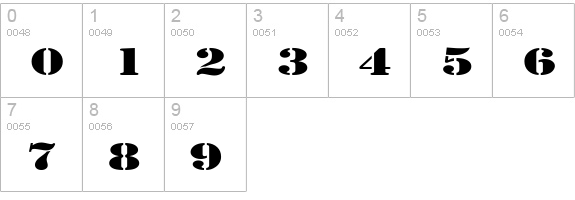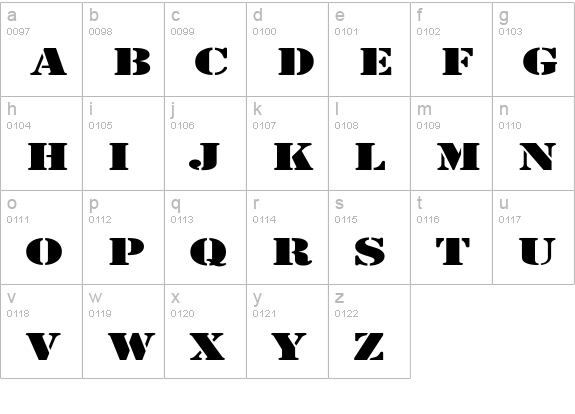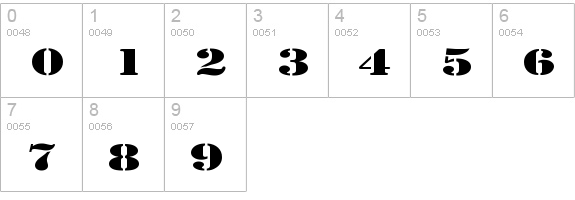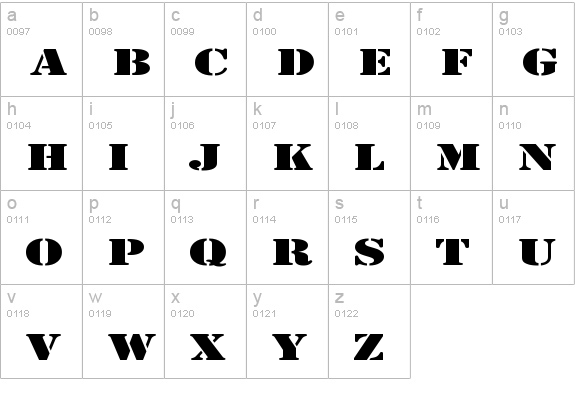
Army Expanded is a distinctive, extended-width variant in the Army typeface family \xE2\x80\x94 well suited to design and typography projects.
The Army Expanded font is a bold and sturdy typeface that exudes strength and authority. Its sleek design makes it perfect for military-inspired projects, posters, and branding materials. With its extended characters and sharp edges, Army Expanded commands attention and leaves a lasting impression. What's even better is that this powerful font is available for free download at FontsMarket.com. Whether you're working on a design project that requires a touch of military flair or simply looking to add a touch of boldness to your typography, Army Expanded is the perfect choice. Download it now and unleash the commanding presence of this versatile typeface in your designs.